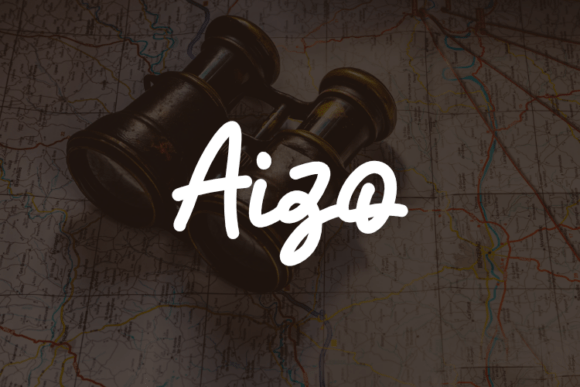
Embark on a Creative Journey with Aizo Font
Have you ever been in the midst of a design project, only to find yourself stuck on the perfect font? I recall a recent experience where I was working on a travel blog, and my client requested a font that captured the essence of adventure and exploration. After scouring through numerous options, I stumbled upon Aizo Font, a spirited handwritten script font that instantly resonated with the project’s theme.
Aizo Font is more than just a font – it’s an experience. Its rugged, organic flow and energetic strokes evoke the feeling of a note scribbled in a traveler’s journal. The thick, marker-style weight and casual loops make it an excellent choice for adventure-themed branding, outdoor photography watermarks, travel blog headers, and authentic product packaging.
Honest Review: What I Love and What to Consider
- ✅ Unique, hand-crafted feel that adds a personal touch to designs
- ✅ Energetic and adventurous vibe that’s perfect for travel and outdoor themes
- ✅ Easy to read, even in smaller sizes
- ✅ Versatile and can be used for various design projects, from branding to social media
- ⚠️ Limited use in formal or corporate designs, as it may come across as too casual
- ⚠️ May not be the best choice for very long texts, as it can be a bit tiring to read
A Practical Guide to Using Aizo Font
The Story Behind Aizo Font
Aizo Font was inspired by the thrill of exploration and discovery. Its creator, a passionate typographer, wanted to capture the essence of adventure and travel in a font that would evoke the feeling of a handwritten journal entry. With Aizo Font, you can bring a sense of freedom and “off-the-beaten-path” charm to your designs.
| Font Name | Aizo Font |
| Author | Eric Kusuma |
Q: What type of designs is Aizo Font best suited for?
A: Aizo Font is perfect for adventure-themed branding, outdoor photography watermarks, travel blog headers, and authentic product packaging.
Q: Is Aizo Font available in different weights or styles?
A: Aizo Font comes in a single weight, but its versatility and range of OpenType features make it suitable for various design applications.